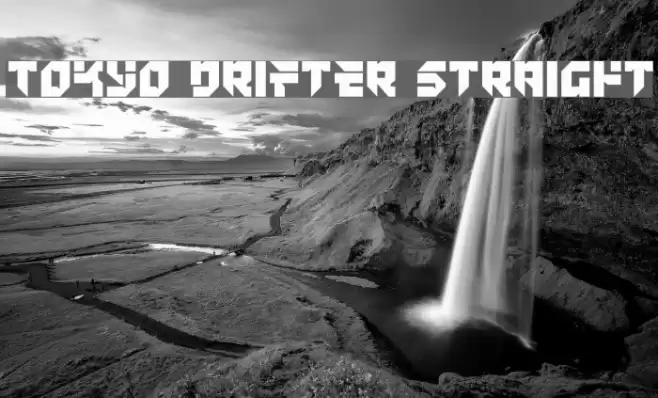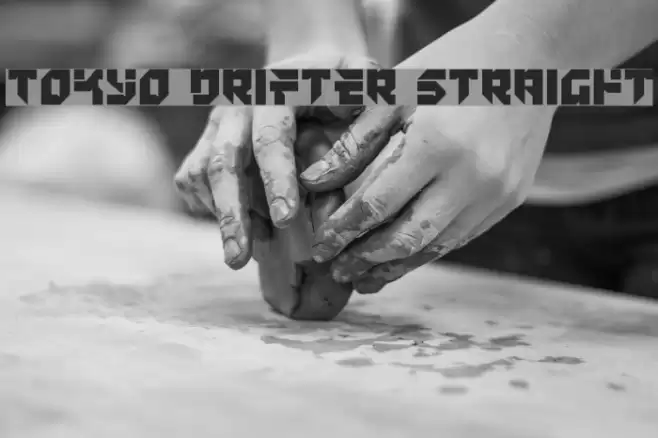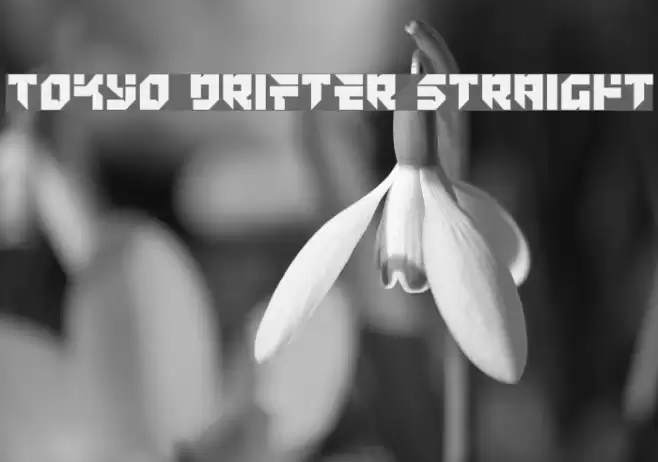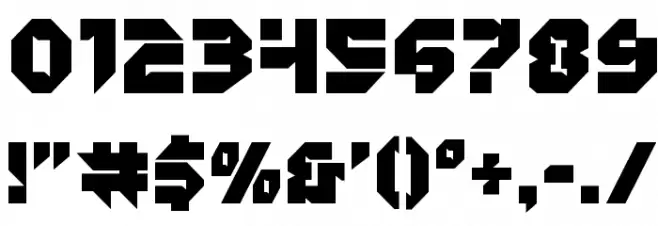
Tokyo Drifter Straight Font
Tokyo Drifter Straight Description
This font features a bold, geometric design with sharp angles and a futuristic aesthetic. The characters are constructed with a blocky, stencil-like appearance, giving it a distinct and edgy look. The uppercase and lowercase letters maintain a consistent style, with each character exhibiting a unique angular cut that adds to its modern appeal. The numerals and special characters follow the same design principles, ensuring uniformity across the font. This typeface is ideal for projects that require a strong, impactful visual presence.
A bold, geometric font with a futuristic, stencil-like design from Uncategorized fonts.
- Proposed Projects: Ideal for branding, posters, video game graphics, and sci-fi themed projects.